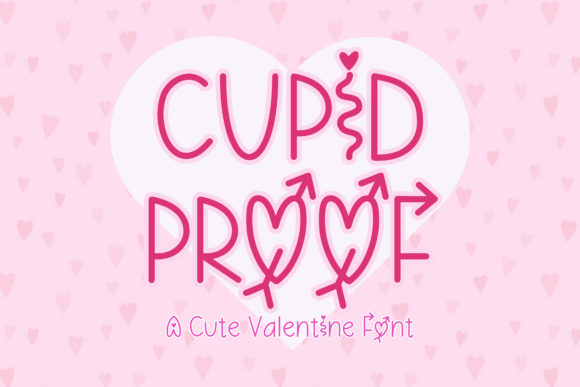
Cupid Proof Font: The Perfect Addition to Your Romantic and Whimsical Designs
Cupid Proof Font is a delightful and whimsical handwritten font designed with playful curves, hearts, and arrows. It’s perfect for adding a romantic, fun, and creative touch to greeting cards, wedding invitations, social media graphics, and any project that calls for a sweet, heartfelt vibe.
What Makes Cupid Proof Font So Special?
Cupid Proof Font is a unique and charming font that stands out from the rest. Its playful curves, hearts, and arrows give it a whimsical touch that’s sure to capture the hearts of your audience. The font is designed to evoke feelings of love, romance, and joy, making it perfect for projects that require a sweet and heartfelt vibe.
Features of Cupid Proof Font
- Whimsical Design: Cupid Proof Font features playful curves, hearts, and arrows that give it a whimsical and romantic touch.
- Handwritten Style: The font has a handwritten style that gives it a personal and intimate feel.
- Perfect for Romantic Projects: Cupid Proof Font is perfect for projects that require a romantic and sweet vibe, such as wedding invitations, greeting cards, and social media graphics.
- Easy to Read: The font is easy to read and understand, making it perfect for use in a variety of projects.
Uses of Cupid Proof Font
Cupid Proof Font can be used in a variety of projects that require a romantic and whimsical touch. Some of the most popular uses of the font include:
- Wedding Invitations: Cupid Proof Font is perfect for wedding invitations, as it adds a romantic and whimsical touch to the design.
- Greeting Cards: The font is also great for greeting cards, as it adds a personal and intimate touch to the message.
- Social Media Graphics: Cupid Proof Font can be used to create social media graphics that are romantic, fun, and engaging.
- Stationery: The font can also be used to create stationery, such as notebooks, journals, and letterheads.
Benefits of Using Cupid Proof Font
There are several benefits to using Cupid Proof Font in your designs. Some of the most significant advantages include:
- Unique and Eye-Catching: Cupid Proof Font is a unique and eye-catching font that is sure to grab the attention of your audience.
- Emotional Connection: The font is designed to evoke feelings of love, romance, and joy, making it perfect for projects that require an emotional connection with the audience.
- Versatile: Cupid Proof Font can be used in a variety of projects, from wedding invitations to social media graphics.
Tips for Using Cupid Proof Font
Here are some tips for using Cupid Proof Font in your designs:
- Use it Sparingly: Cupid Proof Font is a bold and eye-catching font, so it’s best to use it sparingly to avoid overwhelming the design.
- Pair it with Other Fonts: The font can be paired with other fonts to create a unique and interesting design.
- Experiment with Colors: Cupid Proof Font looks great in a variety of colors, so don’t be afraid to experiment and find the perfect color for your design.
Cupid Proof Font is a delightful and whimsical handwritten font that’s perfect for adding a romantic, fun, and creative touch to your designs. With its playful curves, hearts, and arrows, the font is sure to capture the hearts of your audience. Whether you’re designing wedding invitations, greeting cards, or social media graphics, Cupid Proof Font is a great choice.